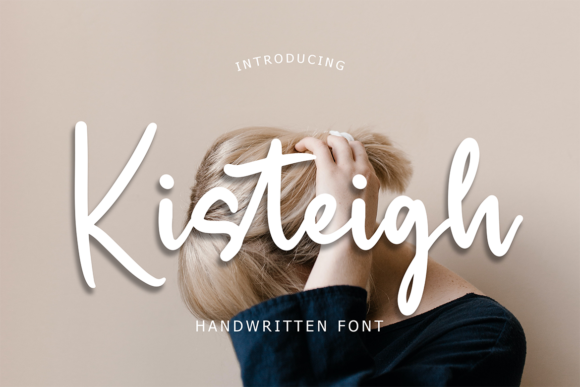
Unleash Your Creativity with Kisteigh Font
Have you ever found yourself stuck in a creative rut, staring blankly at a blank page, waiting for inspiration to strike? It’s a feeling we’ve all experienced at some point or another. But what if I told you that there’s a simple way to breathe new life into your designs and bring your ideas to the forefront?
Enter Kisteigh Font, a modern handwritten font designed to add a touch of personality and whimsy to your work. Whether you’re a graphic designer, writer, or artist, this font is the perfect tool to help you express yourself and connect with your audience on a deeper level. With its unique, handcrafted feel, Kisteigh Font is the perfect addition to any project, from branding and marketing materials to editorial and artistic endeavors.
As a designer, you know how important it is to have the right tools at your disposal. That’s why Kisteigh Font is a valuable asset to any creative arsenal – it’s a game-changer that will help you take your designs to the next level and leave a lasting impression on your viewers.
Kisteigh Font Key Features
- Font Style: Script, Calligraphy
- Unique Characteristics: Elegant, cursive script with intricate details and flourishes; suitable for invitations, wedding designs, and other creative projects
- Language Support: Latin-based languages, including English, Spanish, French, and many others
Kisteigh Font Review
As a designer, I was excited to dive into the Kisteigh font and see what it had to offer. ✨ One of the things that stood out to me was its unique and quirky charm. The font has a fun, hand-drawn feel that is perfect for adding a touch of personality to your designs.
Another strength of the Kisteigh font is its versatility. ✨ It can be used for a wide range of projects, from logos and branding to web design and print materials. The font comes in a variety of weights, which makes it easy to customize and adapt to different design needs.
However, there are some limitations to consider. ⚠️ For one, the font may not be the best choice for projects that require a lot of precision or technical details. The hand-drawn feel of the font can make it difficult to read in certain contexts. Additionally, some of the characters may not be as well-designed as others, which can be a bit distracting.
Overall, I would say that the Kisteigh font is a great choice for designers who want to add a bit of whimsy and personality to their projects. While it may have some limitations, its unique charm and versatility make it a great addition to any design toolkit.
Here are some pros and cons to consider:
- ✨ Unique and quirky charm
- ✨ Versatile and adaptable
- ⚠️ May not be suitable for projects that require precision or technical details
- ⚠️ Some characters may not be as well-designed as others
Tips for Getting the Most Out of Kisteigh Font
Experiment with different font combinations and pair it with bold and italic styles. Use the font in conjunction with a clear and concise design. Keep the font size and color consistent throughout your project.
Kisteigh Font is suitable for a variety of projects, including: business cards, brochures, presentations, and websites. Its modern and clean design makes it perfect for professional and creative projects.